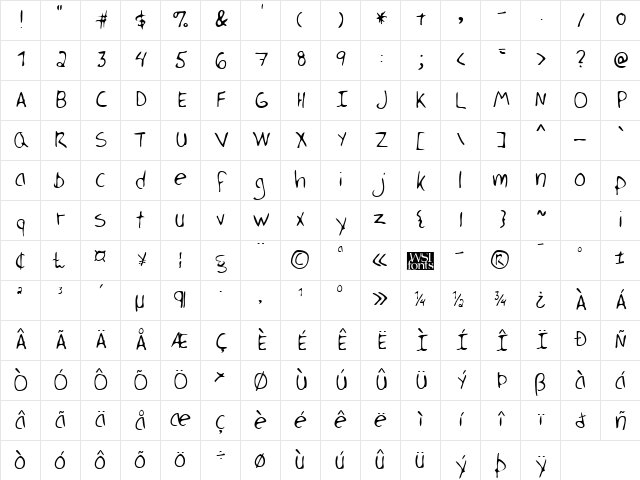
HerricksHand Regular
Design Context for HerricksHand
HerricksHand flows with the natural rhythm of handwritten lettering, making it ideal for designs that call for warmth and personal expression.
Font Pairing: Combine HerricksHand with a simple geometric sans for maximum contrast - the tension between flowing curves and clean structure is a classic typographic pairing.
Pro Tip: Use HerricksHand for short runs of text - names, titles, or taglines. Extended body copy in script faces tires the eye quickly.